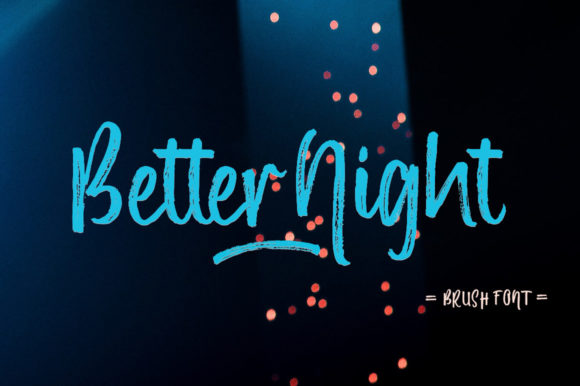
Introducing "Better Night Font": The Gateway to Artistic Expression and Visual Delight
In the realm of digital art, typography transcends its functional purpose, evolving into an art form that speaks volumes about your creative vision. With the "Better Night Font," we present a script font that unlocks a world of possibilities, empowering you to transform your projects into masterpieces.
Crafted with meticulous attention to detail by the acclaimed Stripes Studio, "Better Night Font" embodies a fusion of warmth, romance, and exuberance. Its meticulously crafted brushstrokes create a captivating aura that adds a touch of whimsy to any design.
Sail Away with "Better Night Font": Your Perfect Companion for Boat Lettering
Embark on a nautical adventure with "Better Night Font," the perfect font for boat lettering. Let your creativity set sail as you adorn your vessel with personalized messages, inspiring quotes, or striking graphics. The font's elegant curves and flowing lines will turn your boat into a floating work of art, capturing the essence of freedom and exploration.
Unleash Endless Creativity with "Better Night Font"
"Better Night Font" is not just a font; it's an invitation to unleash your creativity and explore the boundless possibilities of digital art. Whether you're a seasoned designer, a budding artist, or simply someone who appreciates the beauty of typography, this font is your gateway to artistic expression.
With "Better Night Font," you can:
- Create stunning logos that leave a lasting impression
- Design eye-catching posters that captivate your audience
- Craft heartfelt invitations that convey your emotions
- Personalize social media graphics that stand out from the crowd
- Add a touch of elegance to your website's typography
- Create unique and meaningful handwritten notes that touch the hearts of your loved ones
"Better Night Font": Where Art and Technology Intersect
Elevate Your Projects with "Better Night Font"
Join the ranks of creative visionaries who have discovered the transformative power of "Better Night Font." Elevate your projects to new heights and captivate your audience with stunning typography that speaks louder than words.